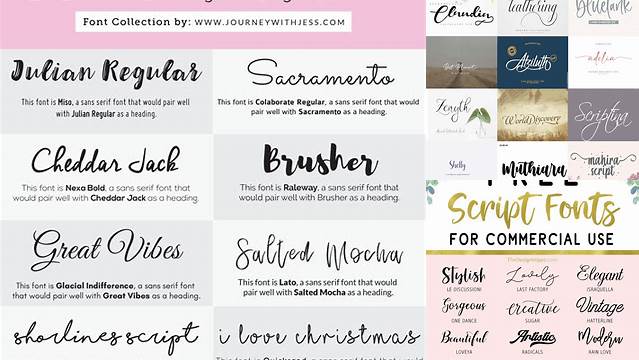
Elegant Script Fonts: A Comprehensive Style Guide
Fonts script style, with its flowing lines and elegant curves, brings a touch of sophistication and personality to any design. Whether you're crafting wedding invitations, designing a logo, or simply looking to add a bit of flair to your text, understanding script fonts is crucial. In this comprehensive guide, we'll explore the nuances of script fonts, their various types, and how to use them effectively. So, let's dive in and discover the art of script fonts!
What are Script Fonts?
Script fonts, often called cursive fonts, are designed to mimic the flowing handwriting of calligraphy or traditional penmanship. They are characterized by their connected strokes and graceful appearance, which makes them perfect for creating a personal and elegant touch. Script fonts evoke a sense of artistry and craftsmanship, making them a popular choice for projects that require a refined aesthetic. Script fonts are not just about aesthetics; they also carry historical and cultural significance. They connect us to the art of handwriting, a skill that has been cherished and practiced for centuries. The evolution of script fonts mirrors the evolution of writing itself, from ancient calligraphy to modern typography. Understanding this history can give you a deeper appreciation for the artistry behind these fonts.
Types of Script Fonts
There's a wide array of script fonts, each with its distinct personality and application. Recognizing these types can help you choose the perfect font for your project. Here are some of the most common categories:
Formal Scripts: Formal script fonts are the epitome of elegance and sophistication. Think of fonts that resemble traditional calligraphy, often used for wedding invitations, certificates, and formal announcements. These fonts usually feature delicate strokes, intricate flourishes, and a high level of legibility. Formal scripts exude a sense of timeless beauty and are perfect for occasions that demand a touch of class. When choosing a formal script, consider the overall tone of your project. Is it meant to be regal and majestic, or subtly elegant? The right formal script can set the tone perfectly.
Casual Scripts: Casual script fonts are more relaxed and approachable. They often mimic modern handwriting and are perfect for projects that need a personal, friendly touch. These fonts are less structured than formal scripts, with variations in stroke thickness and letter connections. Casual scripts are versatile and can be used in a variety of contexts, from greeting cards to social media graphics. The charm of casual scripts lies in their ability to convey warmth and authenticity. They are ideal for projects where you want to create a connection with your audience.
Calligraphic Scripts: Calligraphic scripts are inspired by traditional calligraphy styles. They often feature a strong contrast between thick and thin strokes, and a rhythmic flow that is pleasing to the eye. These fonts are ideal for projects that require a handmade or artisanal feel. Calligraphic scripts can add a touch of artistry and sophistication to your designs, making them stand out. When using calligraphic scripts, pay attention to the spacing between letters and words. Proper kerning and tracking are crucial for maintaining legibility and visual appeal.
Brush Scripts: Brush scripts mimic the look of hand-lettering done with a brush. They often have textured strokes and a dynamic, energetic feel. These fonts are perfect for projects that need a bold and expressive touch. Brush scripts are popular in branding, advertising, and packaging design, where they can create a strong visual impact. The raw and authentic look of brush scripts makes them a favorite among designers who want to convey a sense of creativity and spontaneity.
Retro Scripts: Retro script fonts evoke the styles of the mid-20th century, often seen in vintage advertisements and signage. They have a playful and nostalgic feel, making them ideal for projects that need a touch of retro charm. Retro scripts can transport your audience back in time, adding a unique and memorable element to your designs. When using retro scripts, consider pairing them with other vintage design elements to create a cohesive and authentic look.
How to Use Script Fonts Effectively
Using script fonts effectively requires a bit of finesse. While they can add a touch of elegance and personality, they can also be challenging to read if not used correctly. Here are some tips to help you make the most of script fonts:
Legibility is Key: Legibility should always be your top priority when choosing and using script fonts. While the flowing lines and intricate details are beautiful, they can also make the text difficult to read if the font is too elaborate or the text size is too small. Opt for script fonts that maintain a balance between style and clarity. Legibility is not just about the font itself; it's also about how you use it. Avoid using script fonts for large blocks of text, as this can tire the reader's eyes. Instead, use them sparingly for headings, titles, or short phrases.
Pairing Fonts: Script fonts often work best when paired with simpler, more legible fonts. A classic pairing is a script font for headings and a sans-serif font for body text. This creates a visual contrast that is both appealing and easy to read. Font pairing is an art in itself. Experiment with different combinations to find what works best for your project. Consider the mood and tone you want to convey. A formal script might pair well with a serif font, while a casual script might look better with a sans-serif font.
Script fonts are a powerful tool for adding personality and elegance to your designs. By understanding the different types of script fonts and how to use them effectively, you can create stunning visuals that capture attention and convey your message with style. Remember, the key is to use them judiciously, pair them wisely, and always prioritize legibility. With these tips in mind, you'll be well on your way to mastering the art of script fonts. So, go ahead, experiment, and let your creativity flow!